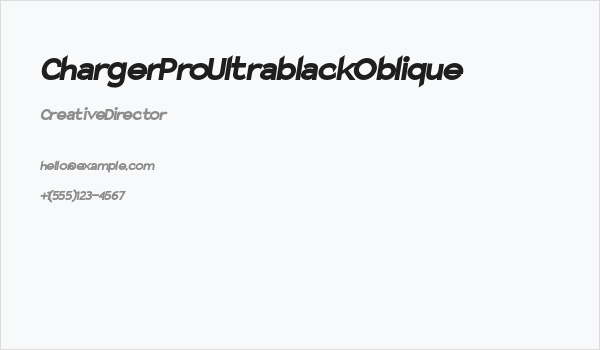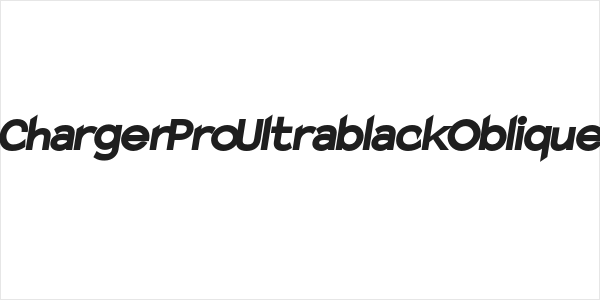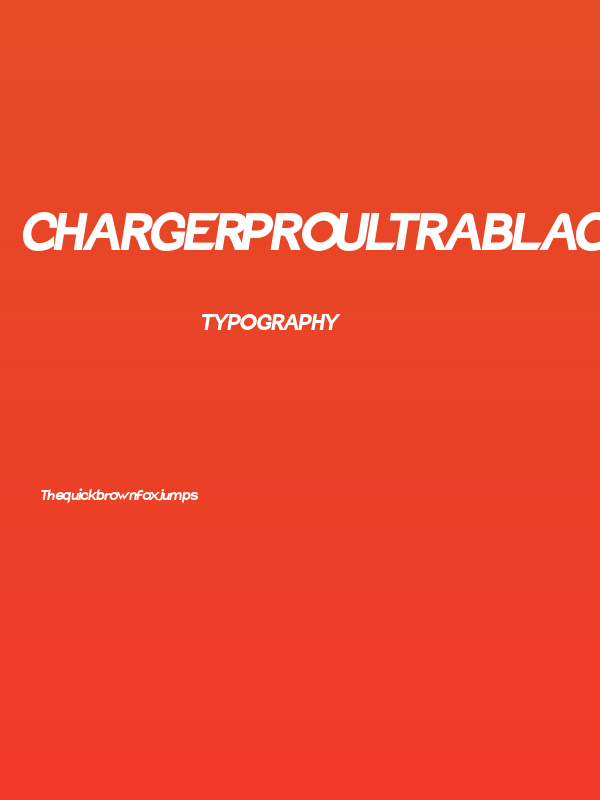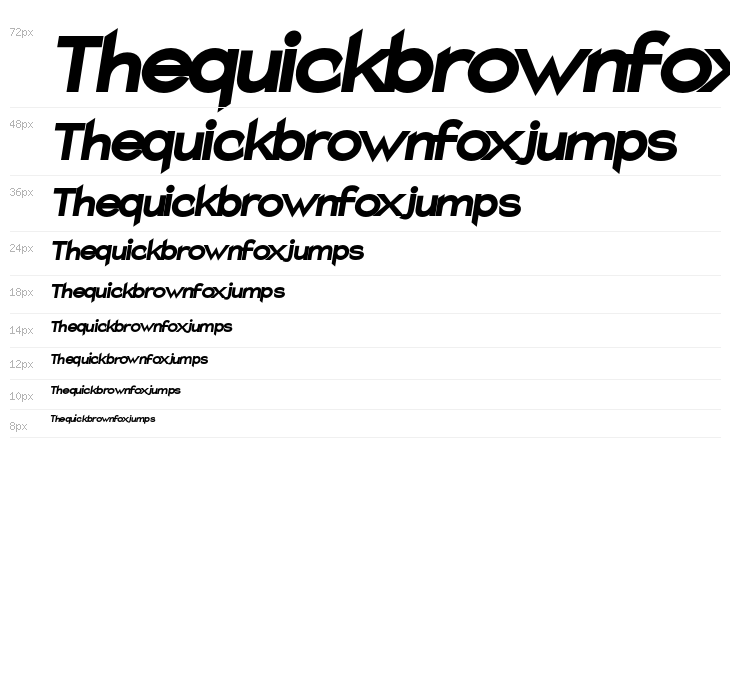
Charger Pro Ultrablack Oblique Font
Charger Pro Ultrablack Oblique Description
This font features a bold and dynamic style with an oblique slant, giving it a sense of motion and energy. The characters are thick and robust, providing a strong visual impact. The uppercase and lowercase letters maintain a consistent weight, ensuring readability while adding a modern flair. The numerals are equally bold, matching the overall aesthetic of the typeface. Special characters are included, maintaining the same boldness and slant, making them suitable for various design needs. The font's design is clean and contemporary, ideal for making statements in headlines or logos.
| Proposed Projects | Ideal for branding, advertising, sports team logos, and dynamic headlines. |